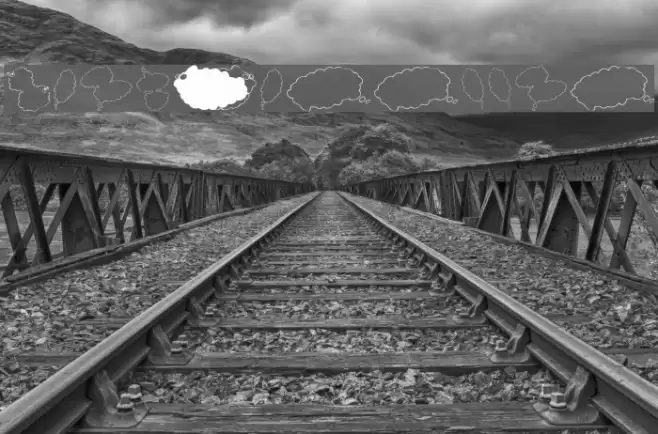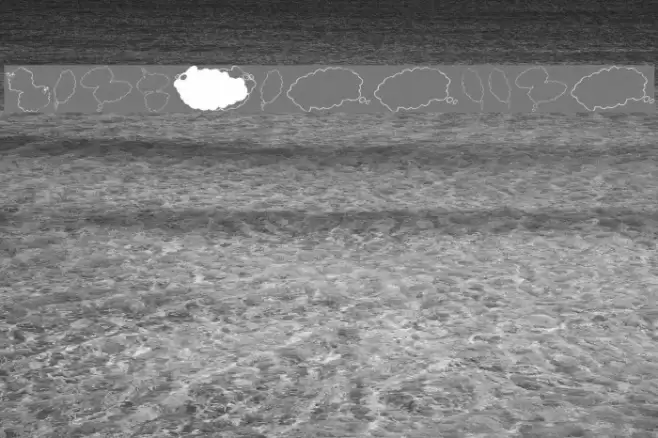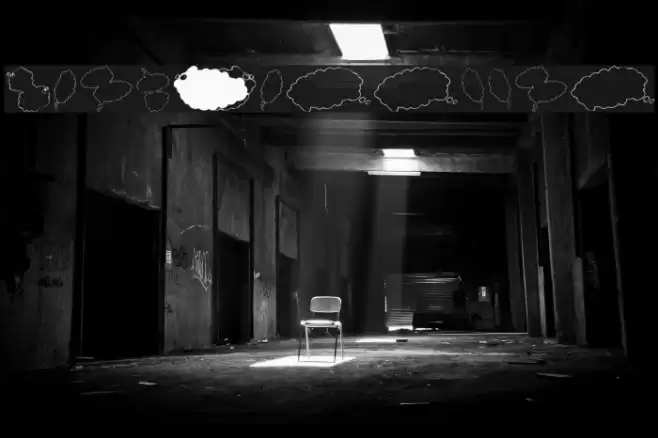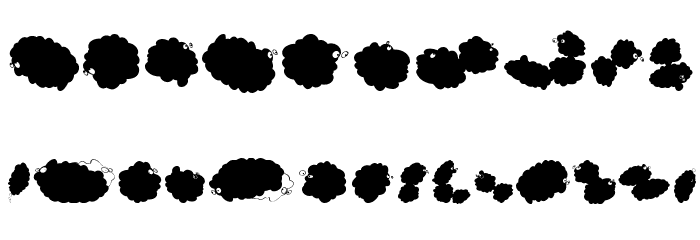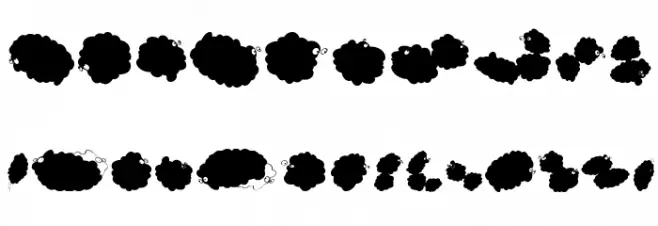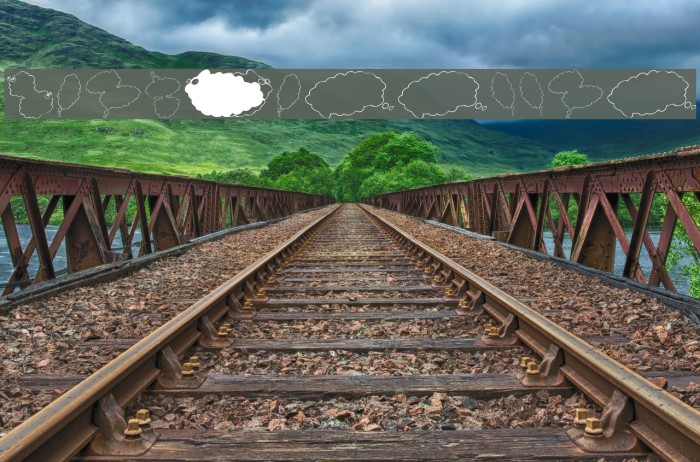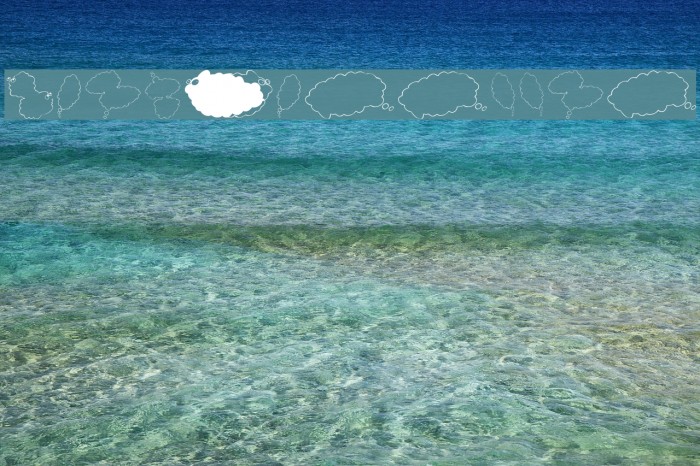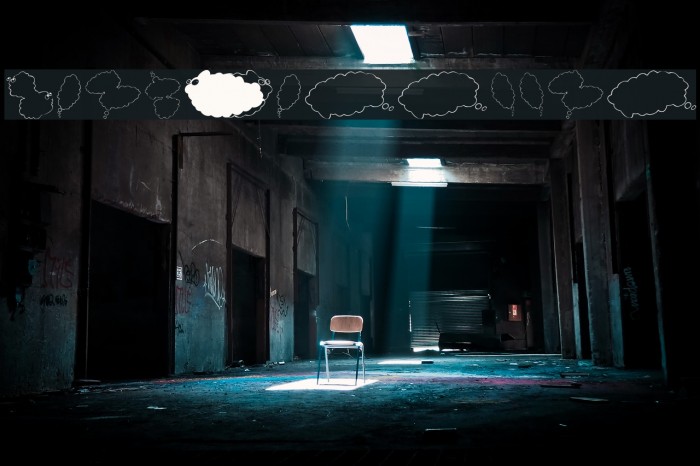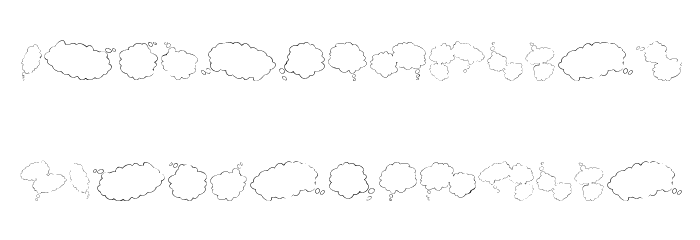
MankBalloons Font
MankBalloons Description
This font features a playful and whimsical design, with each character resembling a fluffy, cloud-like balloon. The outlines are irregular and wavy, giving a sense of movement and lightness. The characters vary in size and shape, adding to the playful nature. The font is highly decorative, making it suitable for creative and informal applications. The overall appearance is bold and eye-catching, with a unique style that stands out.
A playful, balloon-like decorative font with irregular, wavy outlines from Uncategorized fonts.
- Proposed Projects: Ideal for children's book covers, party invitations, playful branding, and any project that requires a fun and whimsical touch.
- Overall Style: Playful, Whimsical